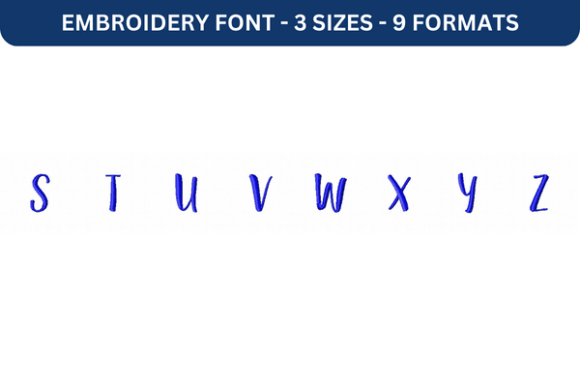
Sugar Plums Font Upper S to Z
As an embroidery designer with years of experience, I’ve seen countless fonts and designs come and go. But when it comes to seasonal and holiday product use, few fonts capture the essence of festive cheer like Sugar Plums Font Upper S to Z. This machine embroidery design is a versatile tool that can elevate your handmade gift offerings and bring a touch of warmth to any project.
The First Impression: A Seasonal Mood
From the moment you lay eyes on Sugar Plums Font Upper S to Z, it exudes a cozy, nostalgic charm. The decorative style is elegant yet playful, making it perfect for holiday embroidery. Each letter is crafted with attention to detail, blending a soft, whimsical feel with a refined finish. Whether you're looking to create a romantic or rustic vibe, this font has the versatility to match your vision.
Its emotional tone is ideal for personalizing gifts, especially during the holidays. It feels like a warm hug in typography form, evoking memories of family gatherings, holiday markets, and cozy evenings by the fire. The design level is high enough to stand out on premium products but not so intricate that it becomes impractical for everyday use.
Real Holiday Selling Situations
Sugar Plums Font Upper S to Z is a game-changer when it comes to holiday embroidery. It works beautifully on sweatshirt embroidery, tote bag design, and kitchen towel embroidery, adding a personalized touch that customers love. For Etsy sellers and small shop product creators, this font is a must-have for creating unique, gift-ready items that stand out in a crowded market.
Imagine using this font on pillow covers or embroidered patches for a limited edition apparel line. It’s also great for creating printable mockup graphics that showcase your seasonal products on social media. Whether you’re planning a gift bundle or a craft fair display, Sugar Plums Font Upper S to Z adds a sense of occasion that resonates with holiday shoppers.
Where to Use With Caution
While Sugar Plums Font Upper S to Z is a fantastic design, there are certain situations where it may require more care. If you're working with small hoop sizes, you might find that the lettering becomes too tight, affecting the overall look. Similarly, tiny lettering or layered details could be challenging on thick towels or dark fabric.
When using metallic thread, be mindful of how the font interacts with the texture of the fabric. Stretchy garments and curved caps may also require adjustments to ensure the design stays intact after repeated washing. Always test thread colors on both light and dark fabric to see how they complement the font’s aesthetic.
Impact on Seasonal Appeal and Customer Emotion
One of the most valuable aspects of Sugar Plums Font Upper S to Z is its ability to influence buyer emotion. Personalized gifts have a strong emotional appeal, and this font enhances that by adding a touch of elegance and warmth. It makes your handmade gift feel more meaningful, increasing the perceived value of your finished product.
During the holiday shopping period, visual recognition and brand consistency are key. This font helps create a cohesive look across your seasonal collection, from baby items to table linens. It also boosts customer trust, as it signals that your products are well-designed and thoughtfully crafted.
Practical Embroidery Designer Notes
Before finalizing any project with Sugar Plums Font Upper S to Z, take time to review the stitch density. Ensure that your hoop size is appropriate for the scale of the design. Using the right stabilizer is essential, especially when working with delicate or stretchy fabrics.
Create realistic mockups to visualize how the font will appear on different materials. After stitching, check small details to ensure everything looks clean and precise. Plan matching color palettes that enhance the font’s natural beauty, and always confirm commercial licensing before selling finished seasonal products.
For those who sell digital embroidery file, this font offers a great opportunity to expand your collection. Whether you're focusing on back-to-school items or holiday-specific designs, Sugar Plums Font Upper S to Z provides a reliable and stylish option that meets the needs of both crafters and small business owners.
Conclusion: A Must-Have for Seasonal Creations
In the world of seasonal embroidery, Sugar Plums Font Upper S to Z stands out as a font that blends beauty with practicality. It’s perfect for creating personalized gifts, home decor, and limited-time product drops that resonate with holiday shoppers. Whether you're an Etsy seller, a craft fair vendor, or a small business owner, this font is a valuable addition to your embroidery toolkit.
With its festive charm and adaptable design, Sugar Plums Font Upper S to Z is more than just a font—it's a way to connect with customers on a deeper level. By incorporating it into your seasonal product collection, you’re not just offering a design; you're creating an experience that brings joy and warmth to the holidays.